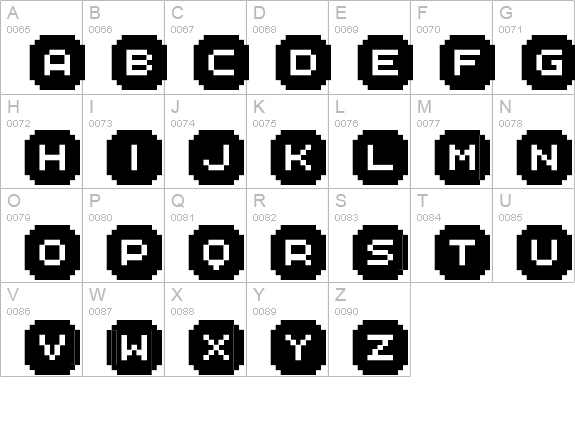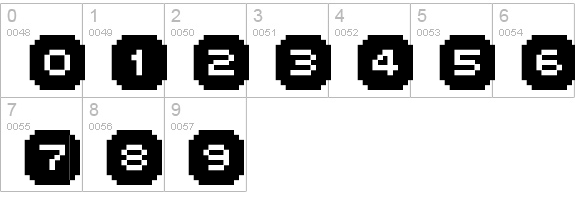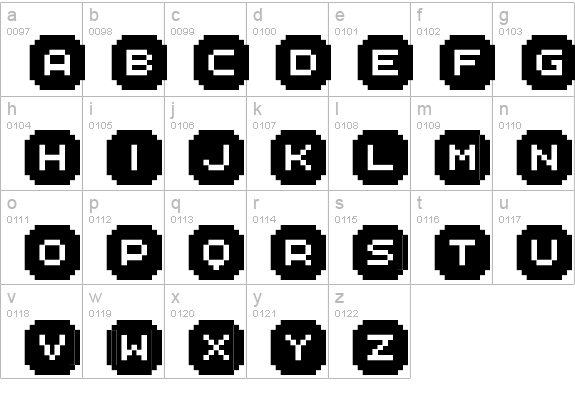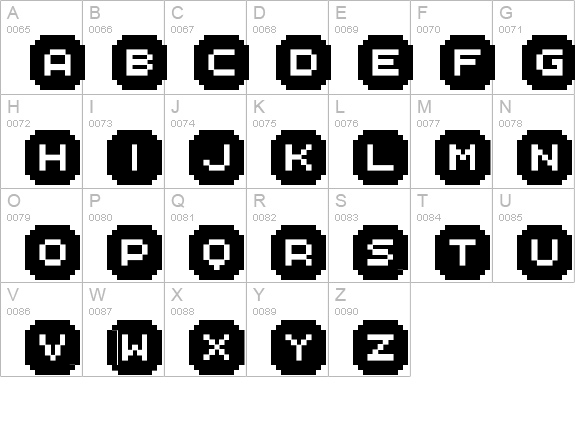
The FFF Interface06 font is a sleek and modern typeface that effortlessly combines elegance with readability. Its clean lines and contemporary design make it perfect for a wide range of projects, from branding to editorial design. The geometric shapes and sharp angles give this font a unique and sophisticated look that is sure to make your text stand out. Best of all, FFF Interface06 is available for free download at FontsMarket.com. This means you can access this stunning font without any cost, making it a valuable addition to your font library. Whether you are a designer, writer, or hobbyist, FFF Interface06 is a versatile font that will elevate your projects and help you achieve the desired aesthetic. Download it today and unleash your creativity with this exceptional typeface.